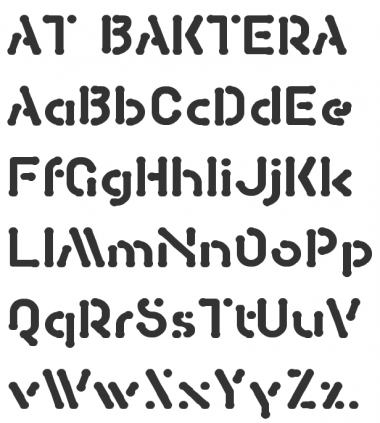
AT Baktera
Stencil
Rounded
This is very nice. It reminds me of a magic marker pen. Are you planning on an uppercase?
I like all the letters, my least favs are x,y & z.
W.
T.
H!
So awesome, I give up.
Almost.
Nice!
So pretty! y is genius!
Great! I think the N has to be improved a bit though, the current version is too angular.
Looking good. Have you thought of changing N to be the same width as H, with the diagonal of V, as it looks very wide at the moment. :)
N's been changed using X's diagonal line.
Awesome stencil. Very much your own style, consistant and usable. 10/10
Another little beauty!
Beautiful, as if done with a marker, bleeding that little bit more ink at the end of strokes.
Great!
Could the 4 work better with a space in the middle?
@Yautja: You're right. I'll loook into it.